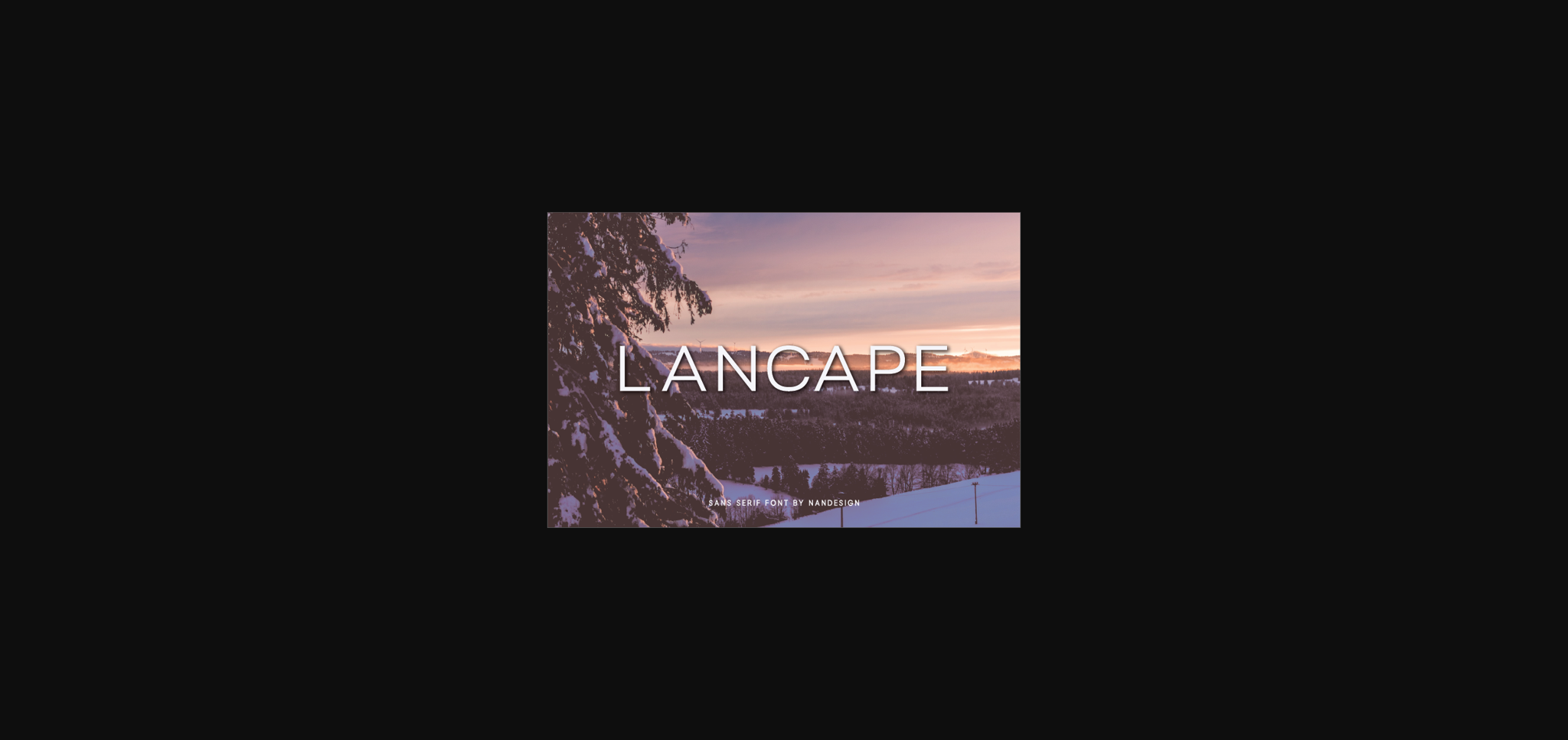
About Lancape Font
Lancape is a casual sans serif font created to complement every project you’re working on.
It is perfect for displays, headers, invitations, save the dates, weddings, and so much more!